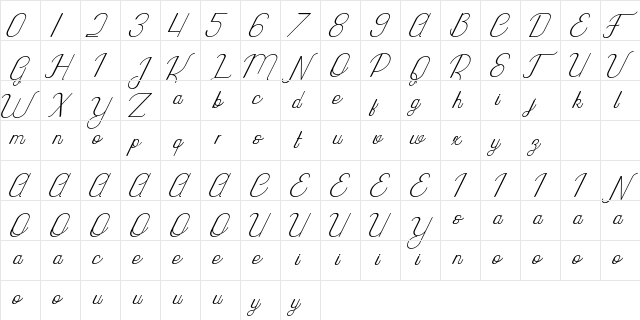
Highway Italic
Design Context for Highway Typeface
Highway is a composed and adaptable typeface that performs quietly and consistently across a wide range of design contexts. The dynamic lean of this cut emphasises speed and emphasis in any layout.
Pro Tip: Try Highway for annotation and caption copy alongside an upright companion — the contrast in angle creates a dynamic but ordered typographic system.